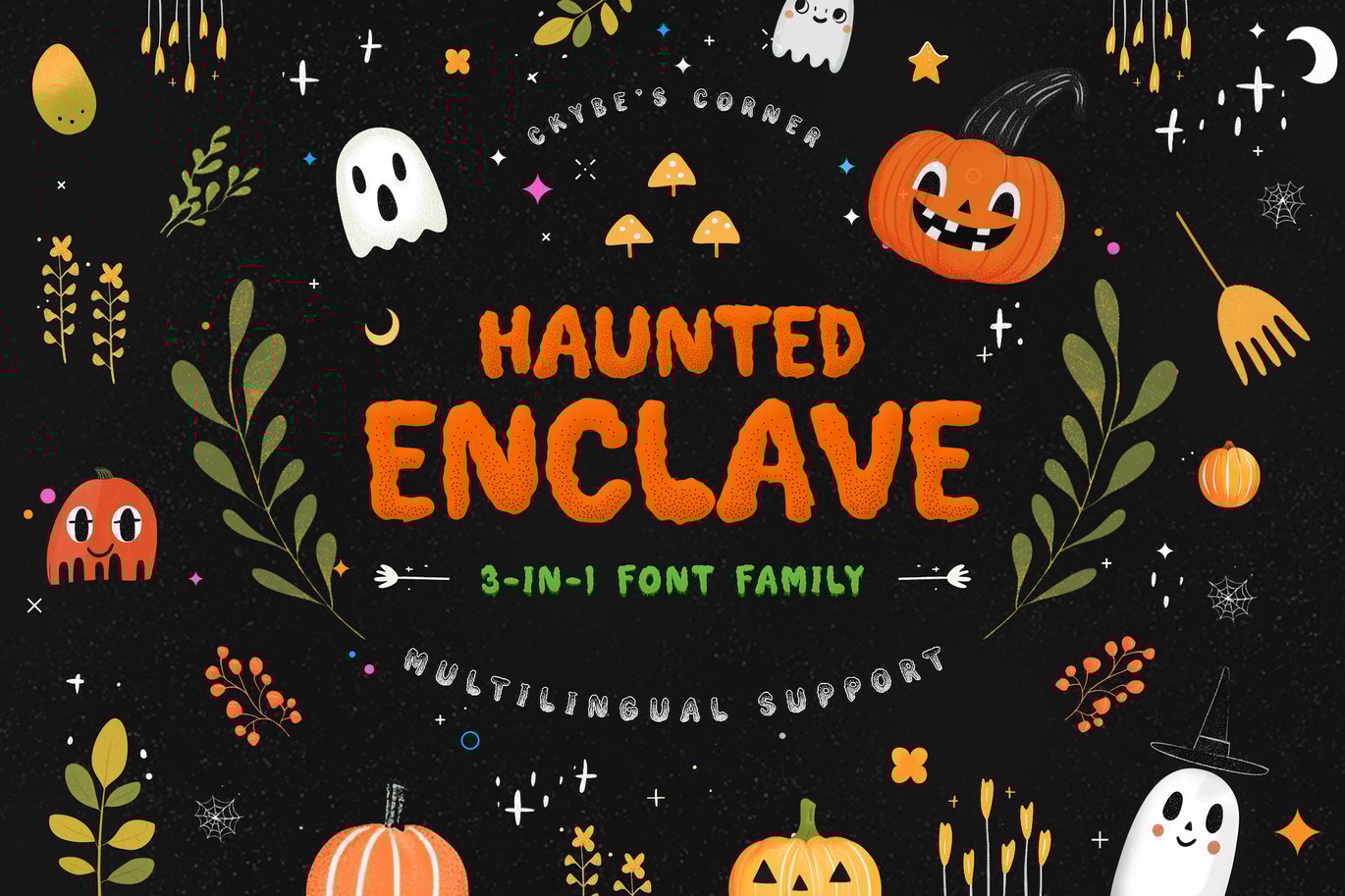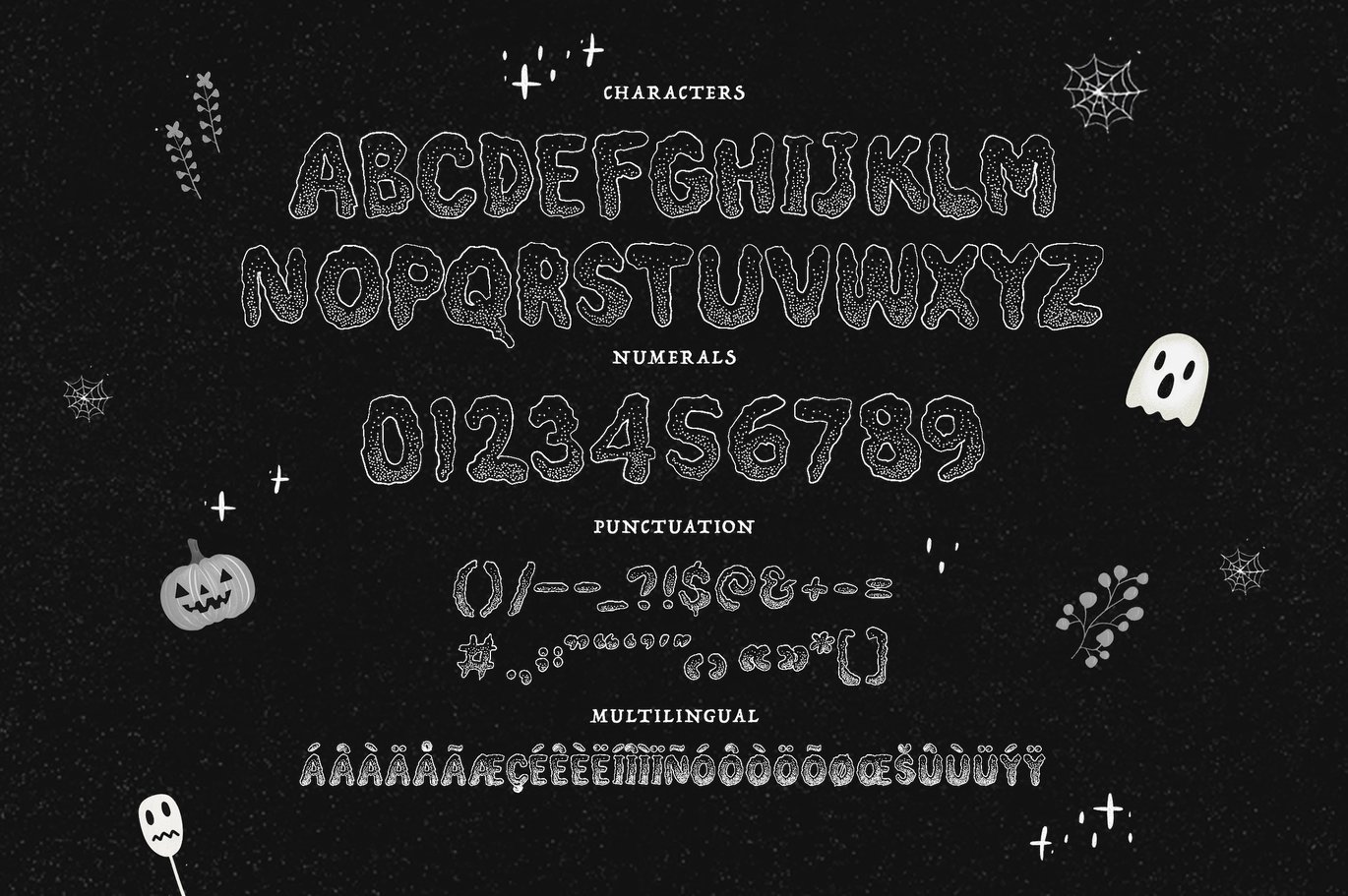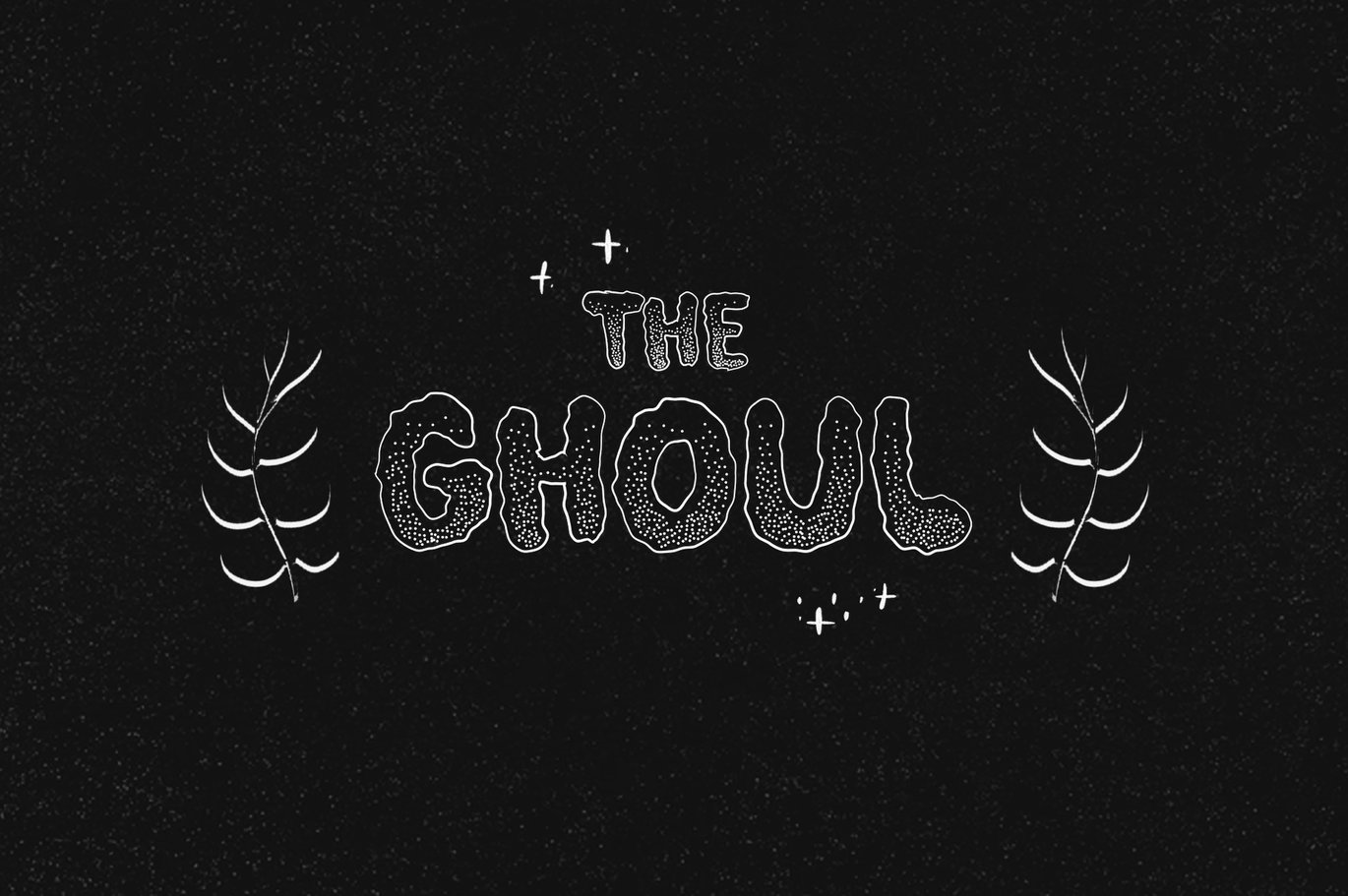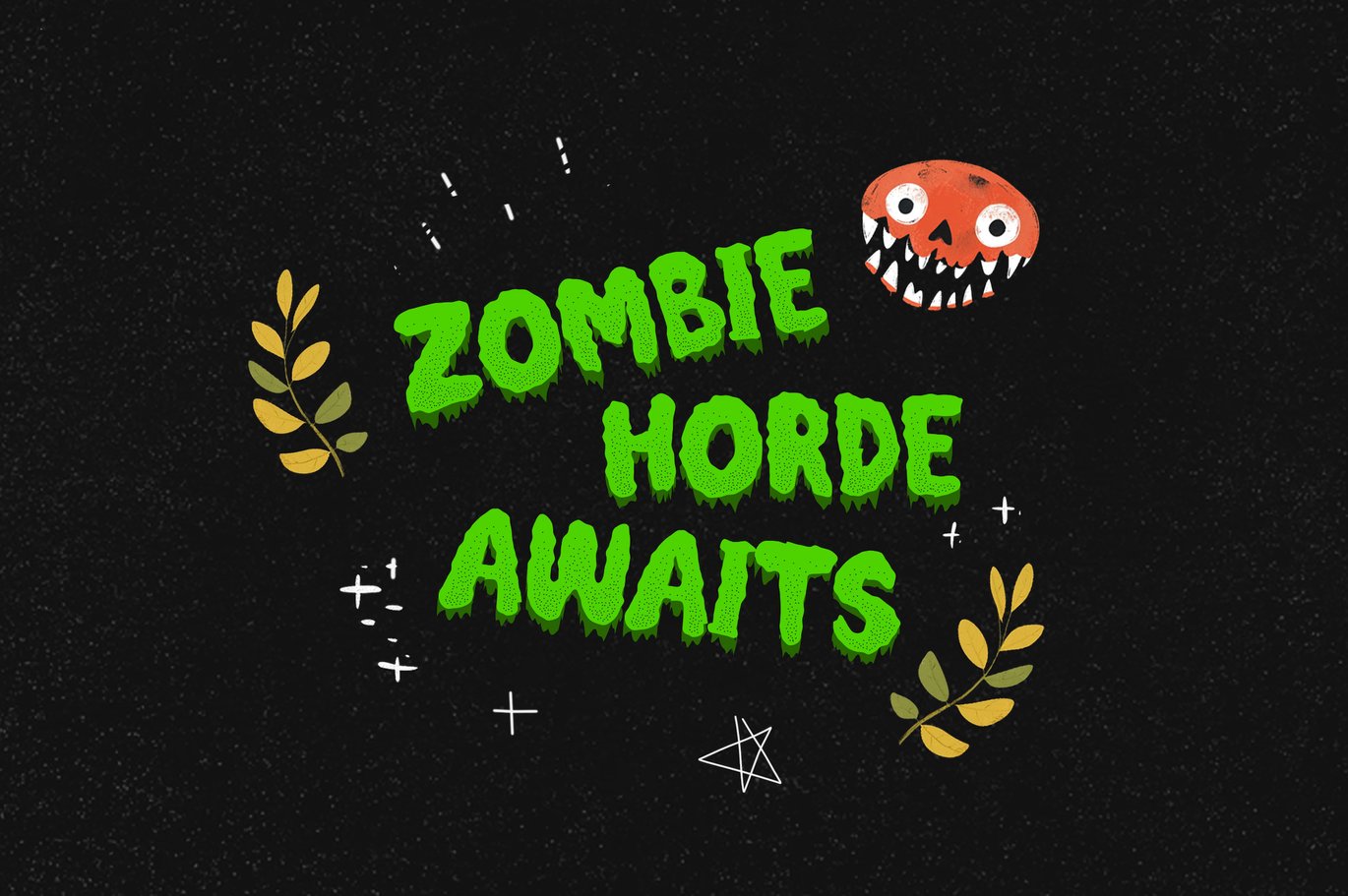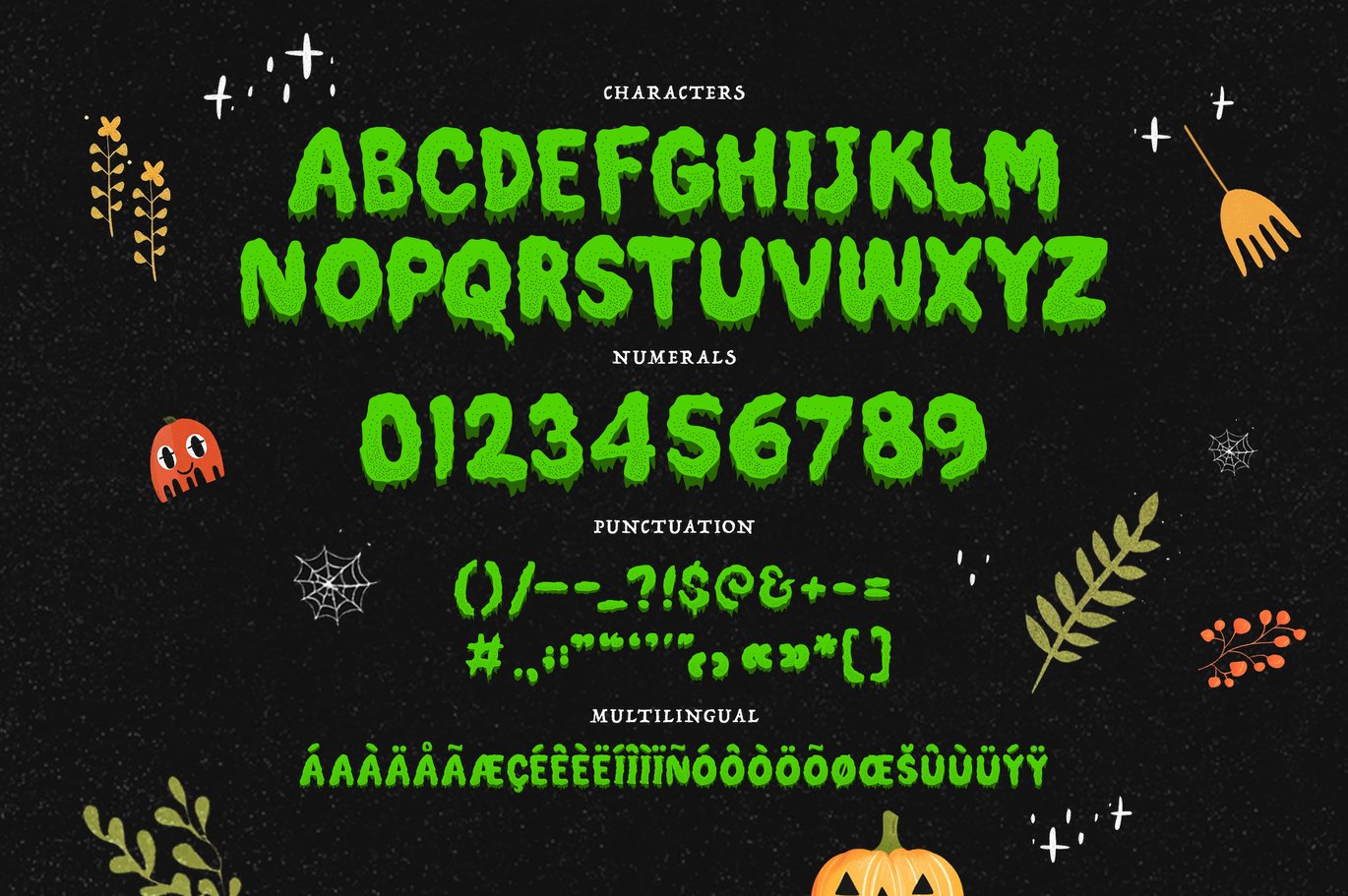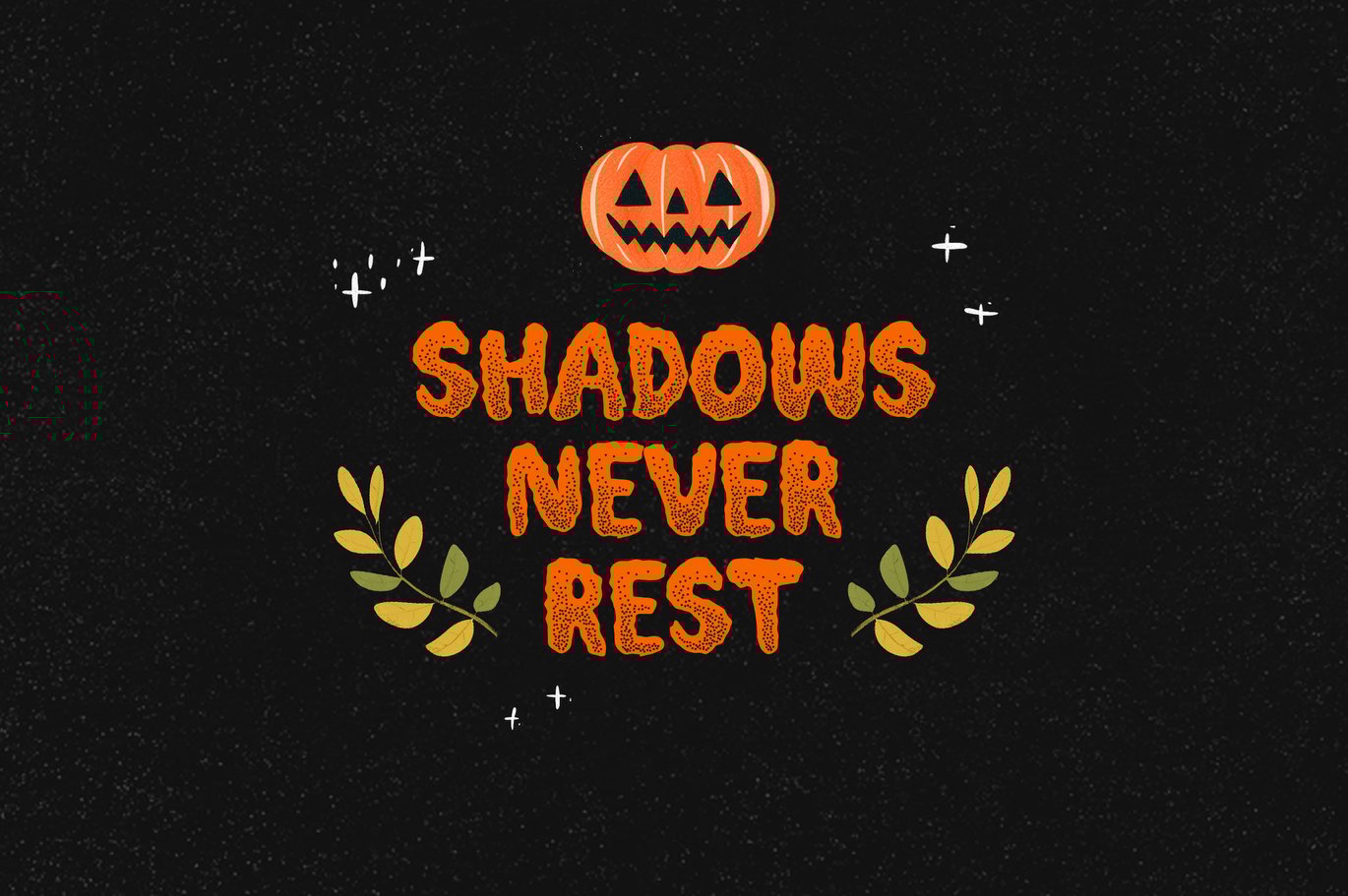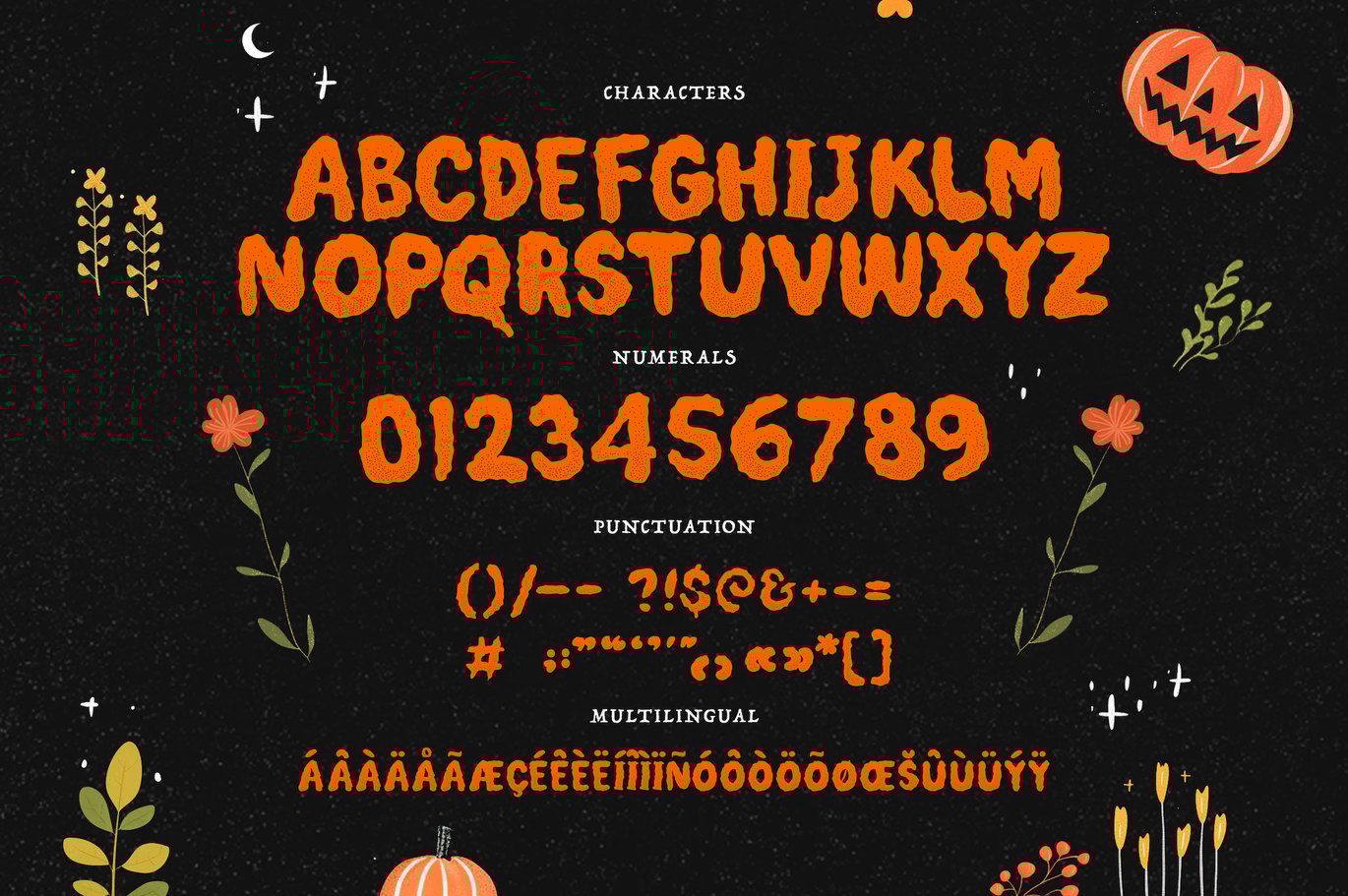
Haunted Enclave – Three Halloween Fonts
Haunted Enclave is a spine-chilling 3-in-1 font set, perfect for adding a touch of horror to your Halloween designs. It includes three distinct styles:
Pumpkin Red – A bold and eerie orange font, inspired by glowing jack-o’-lanterns and autumn nights.
Zombie Green – A toxic, vibrant green font that oozes undead energy, perfect for all your zombie-themed projects.
Ghouly White – A ghostly white outline font, embodying the spectral presence of wandering spirits.
Whether you’re designing party invitations, spooky signage, or haunted house flyers, Haunted Enclave has the perfect font to bring your Halloween creations to life.